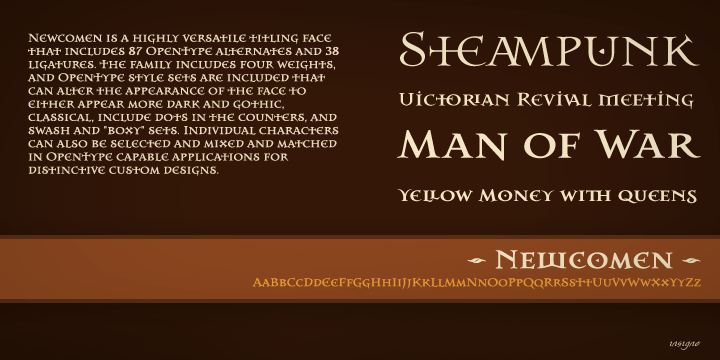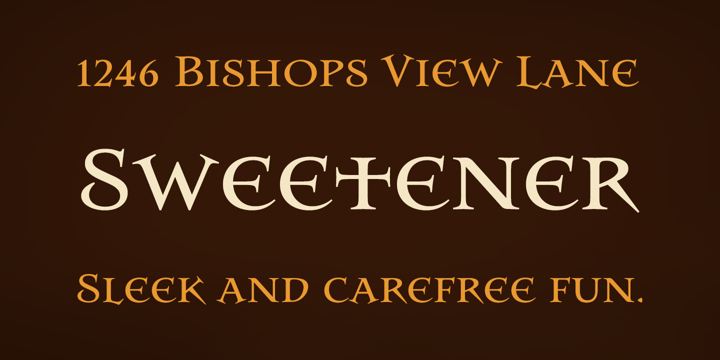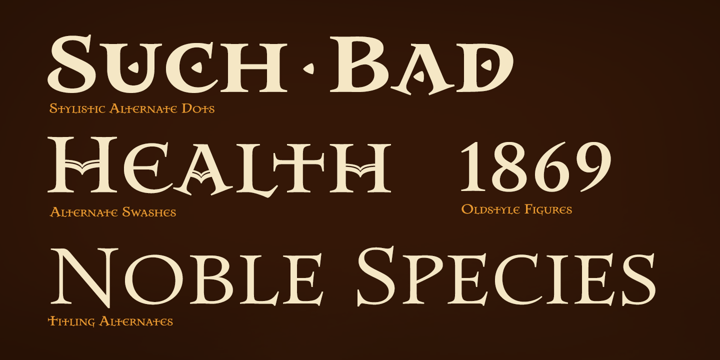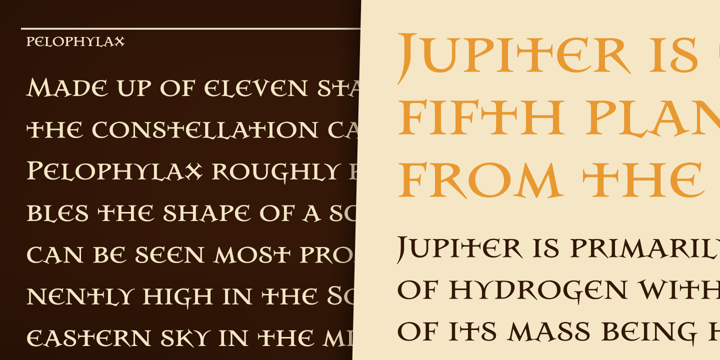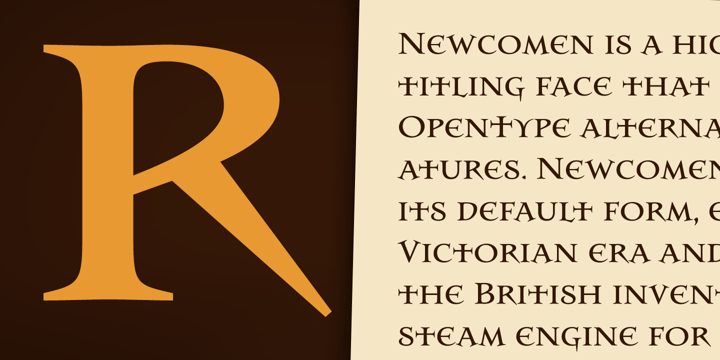
Newcomen
Font Family by Insigne
Newcomen is a highly versatile titling face that includes 87 OpenType alternates and 38 ligatures. Newcomen titling, in its default form, evokes the Victorian era and is named for the British inventor of a steam engine for pumping water.
Newcomen's flexibility is remarkable; the family includes four weights, and OpenType style sets are included that can alter the appearance of the face to either appear more dark and gothic, classical, include dots in the counters, and swash and ?boxy? sets.
Individual characters can also be selected and mixed and matched in OpenType capable applications for distinctive custom designs. A few design ideas are to use the gothic alternates for Halloween, the dots for a steampunk appearance, or the traditional alternates for a unique classical look.